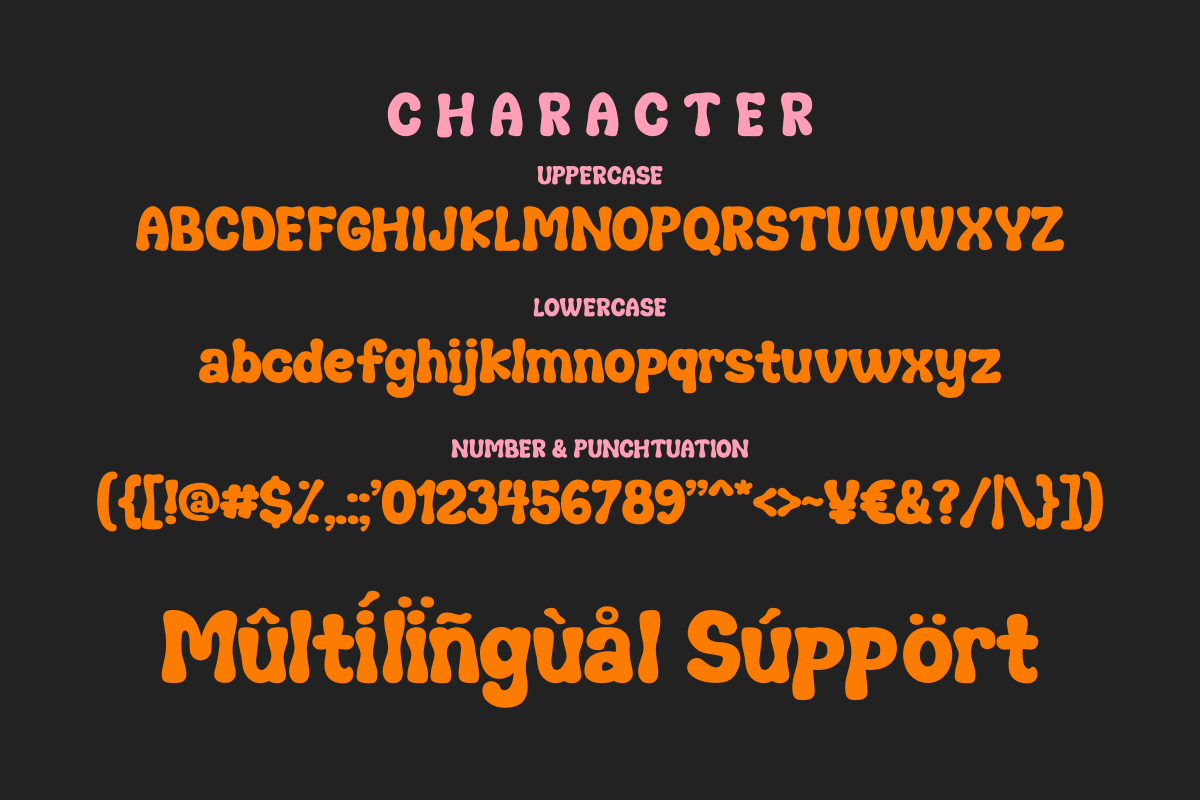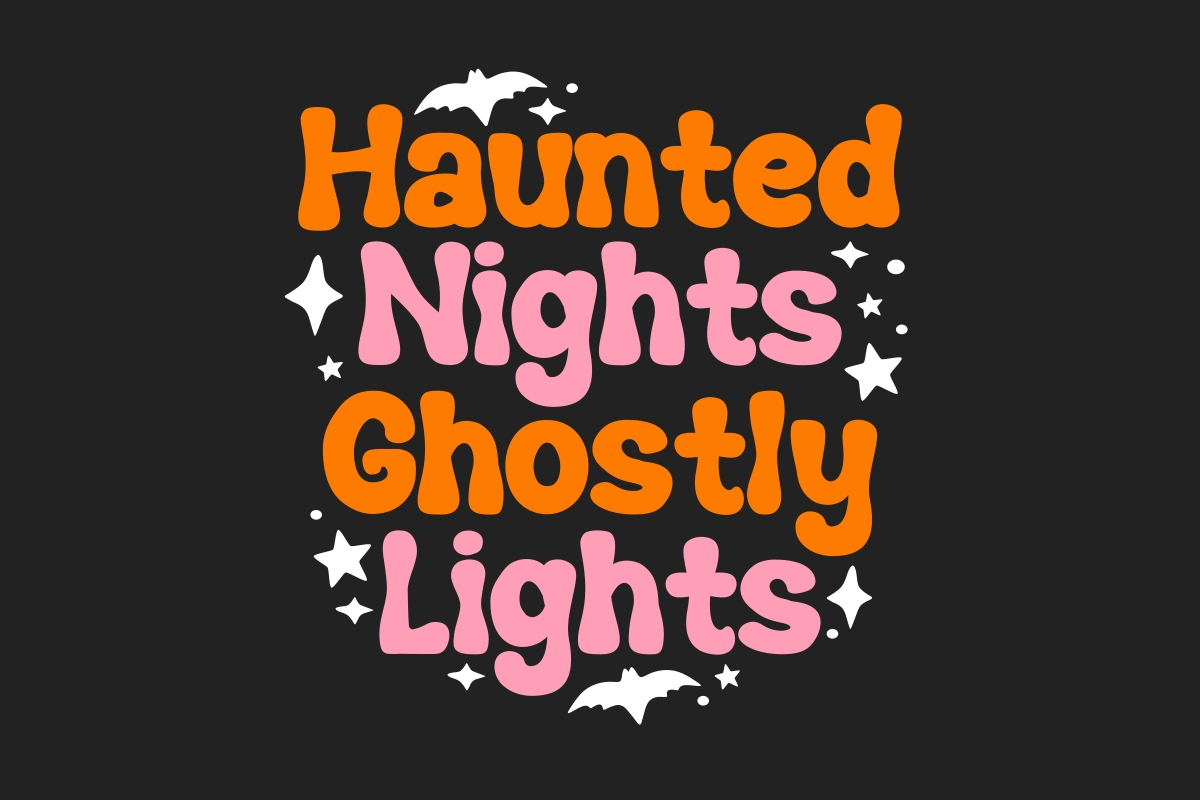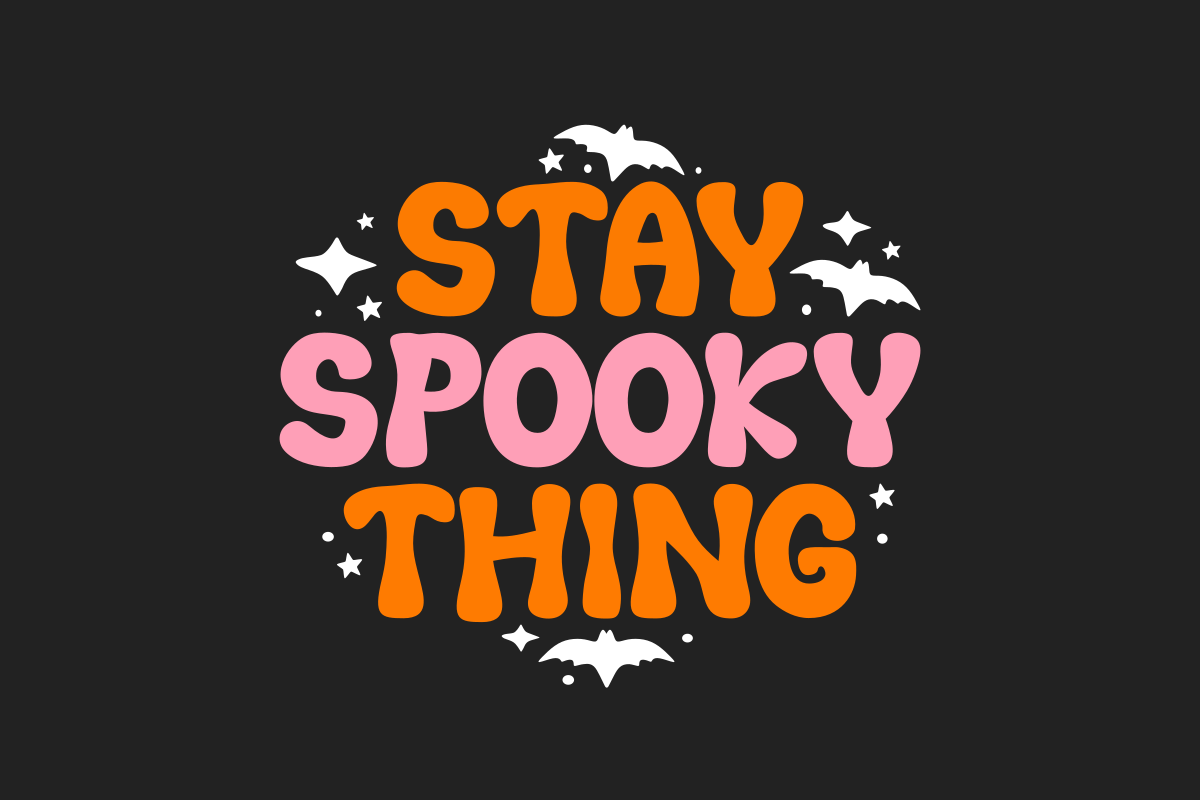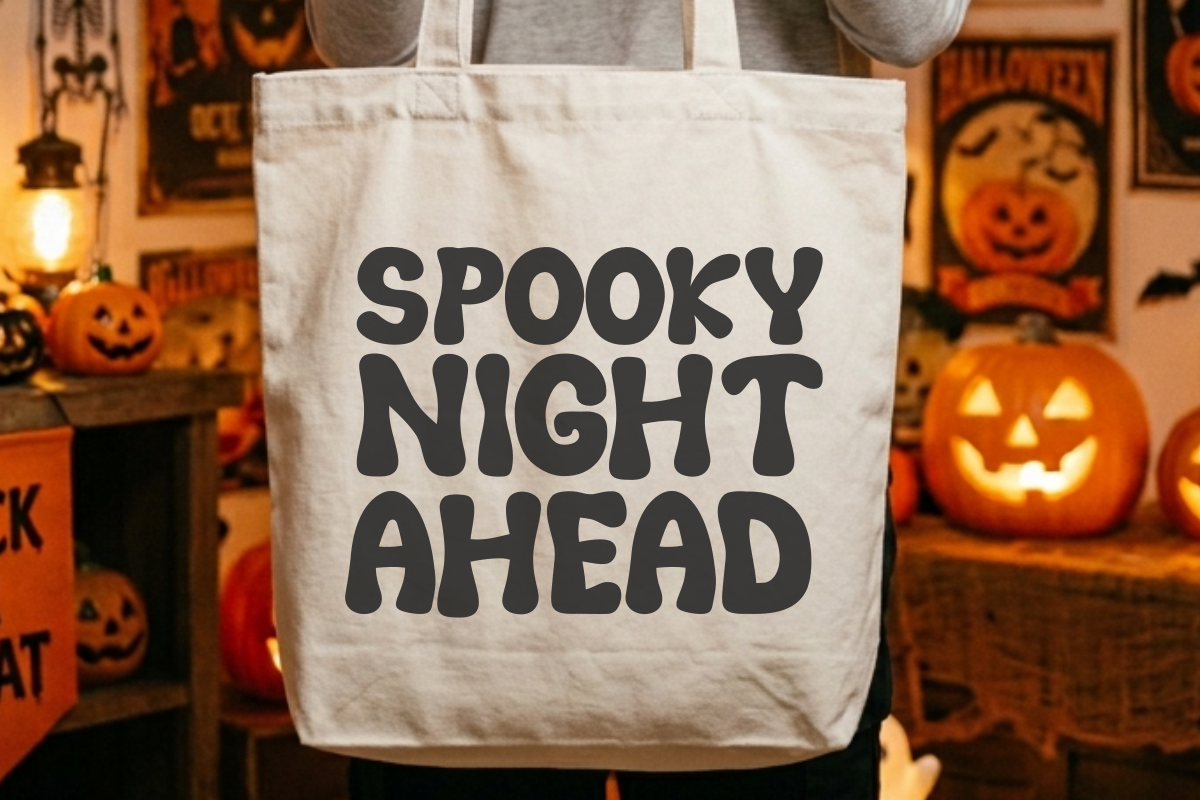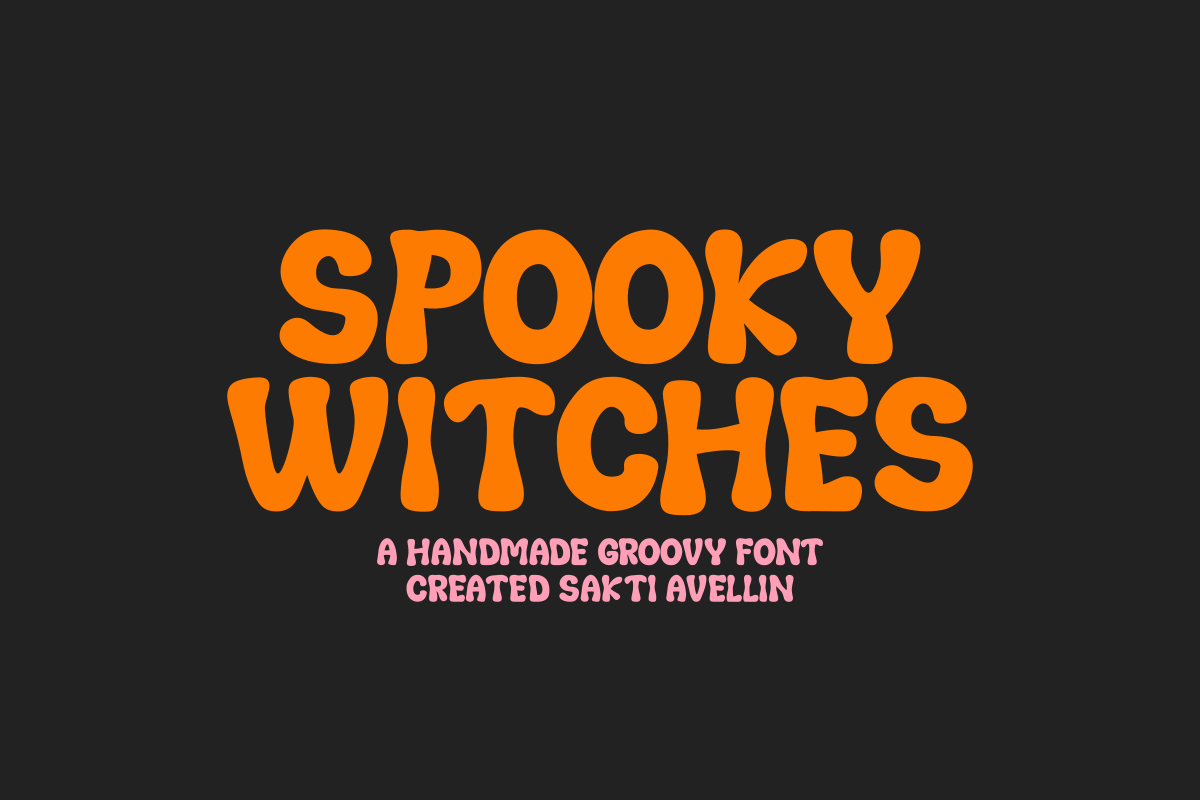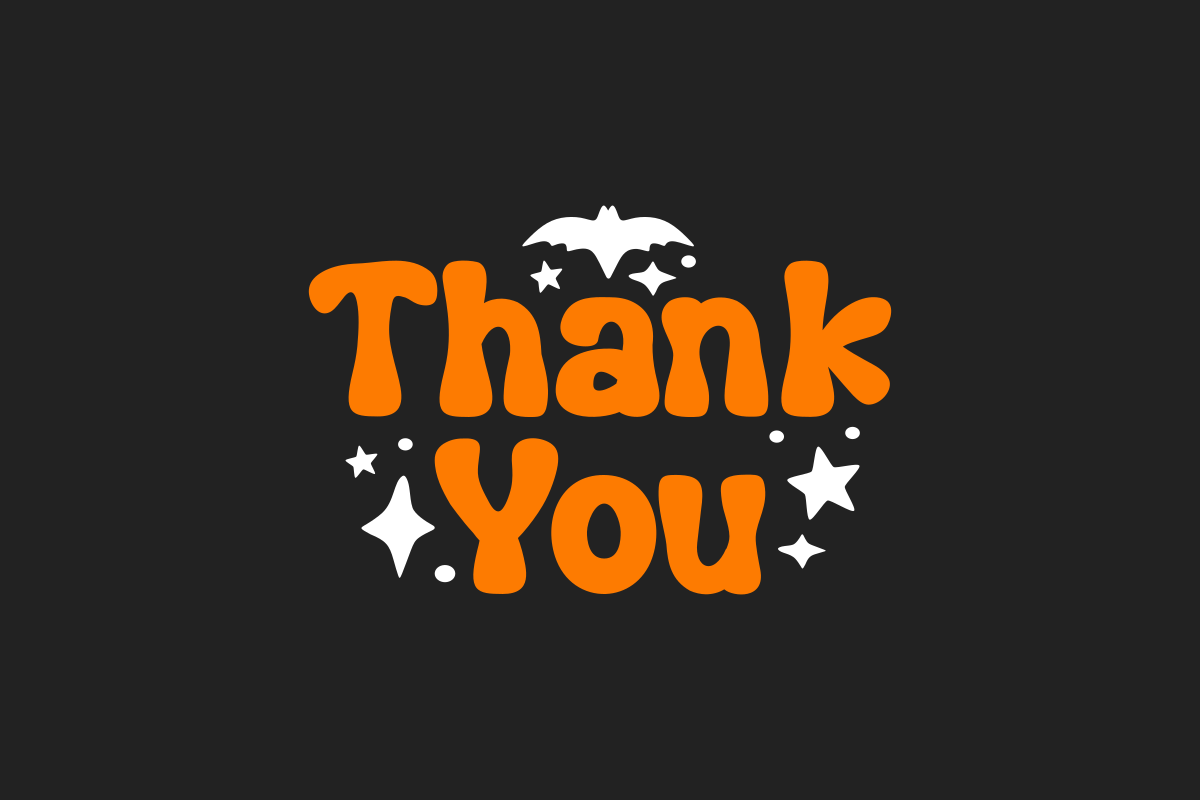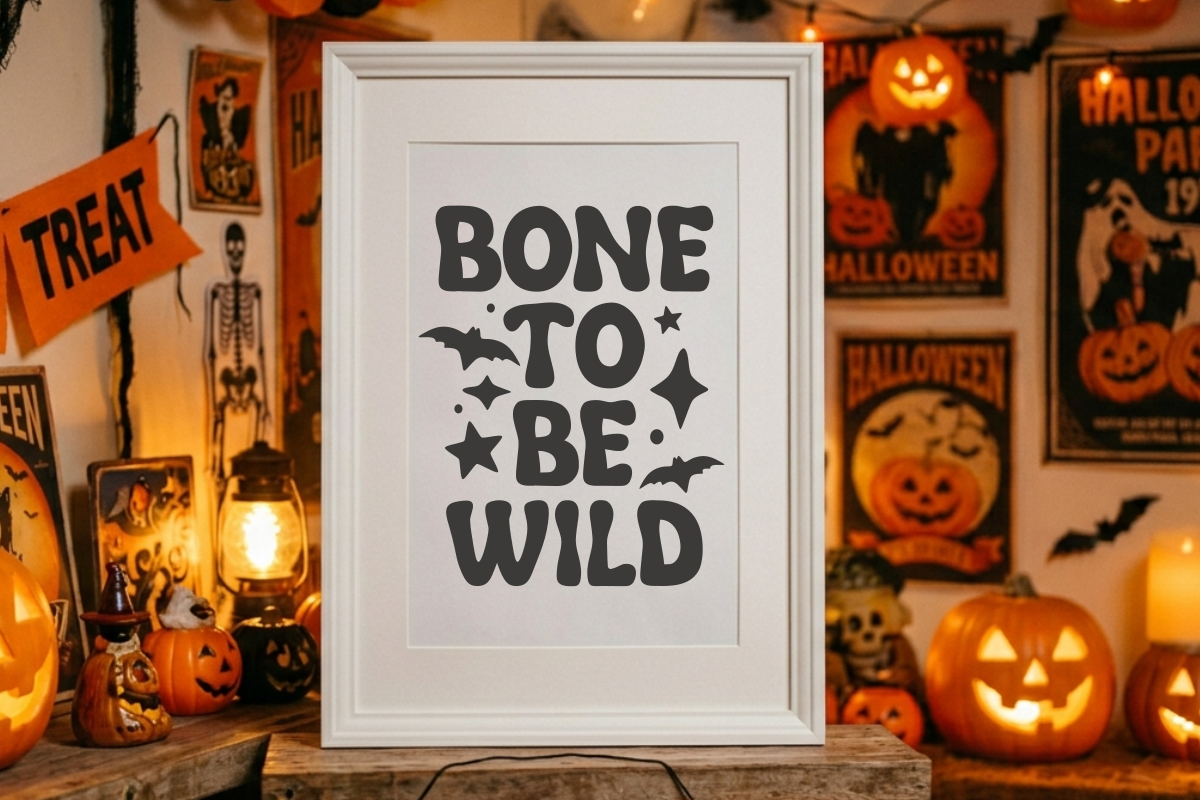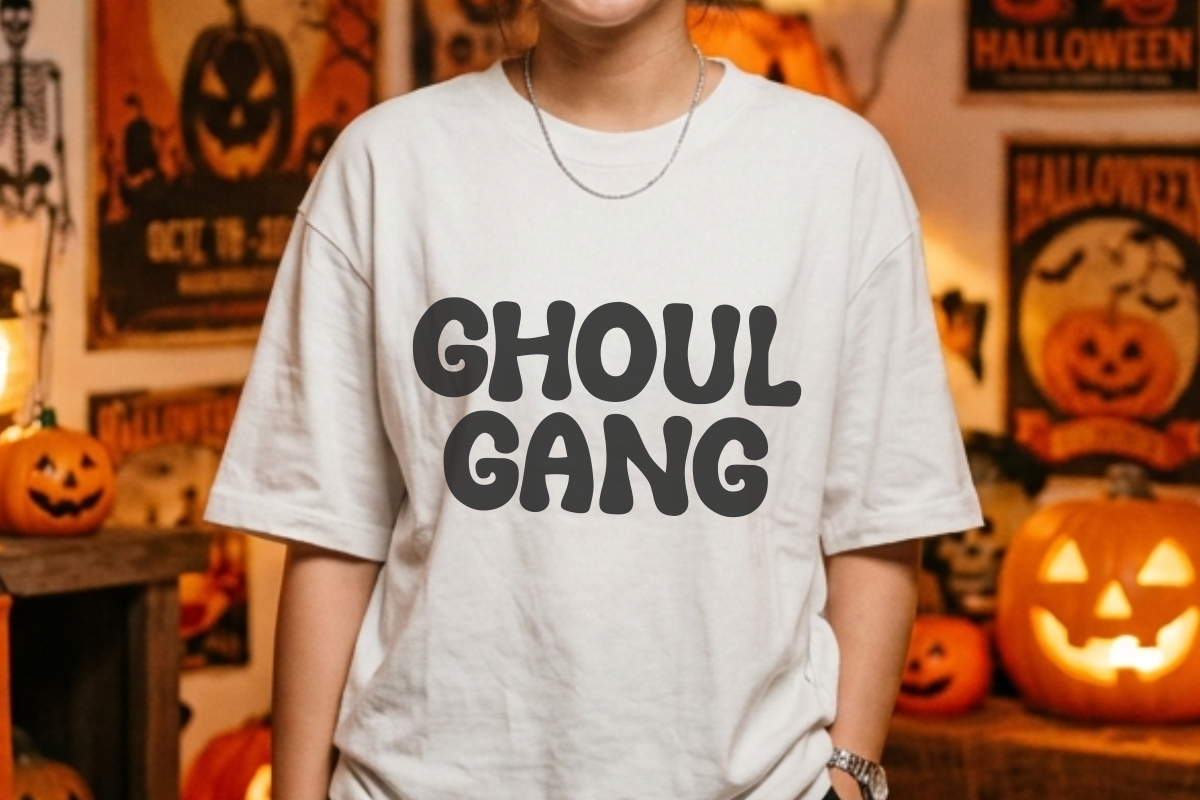
Spooky Witches - Groovy Font
Spooky Witches is a vibrant and playful handmade groovy font designed to bring a fun, retro energy to your creative projects. This bold display typeface features thick, bubbly letterforms with a rhythmic, wavy flow, making it a perfect choice for Halloween-inspired branding, psychedelic posters, funky apparel, and standout social media graphics. Its cheerful and nostalgic aesthetic ensures your headlines pop with a unique handcrafted personality. Whether you are designing for seasonal events, retro boutiques, or whimsical stickers, Spooky Witches adds a lively and creative groove to every design.